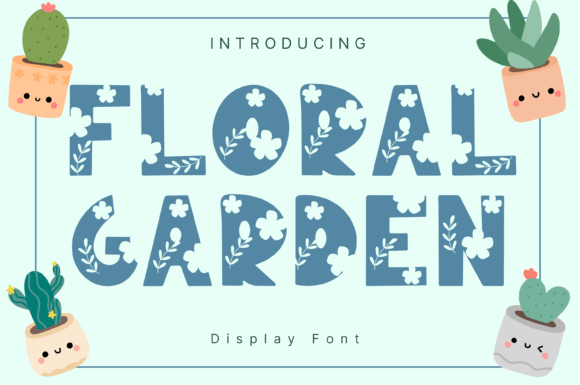
**Step into the Enchanted Realm of Floral Garden Font**
Unveiling an ethereal font that blossoms with elegance and enchantment, Floral Garden beckons you to embark on a creative adventure where your designs bloom with captivating beauty.
This whimsical, decorative masterpiece is not merely a collection of letters; it is a gateway to a realm where imagination reigns supreme. Crafted with the utmost precision and adorned with intricate details, Floral Garden carries the essence of nature's finest creations.
Every curve, every stroke, and every swirl of this font exudes a sense of delicate charm, inviting you to infuse your projects with an air of timeless sophistication. Prepare to be mesmerized as your words bloom into captivating works of art, effortlessly attracting attention and leaving a lasting impression.
**Beyond the Ordinary: Unleashing the Power of Floral Garden**
Floral Garden is more than just a font; it is a catalyst for creative brilliance. Its versatility knows no bounds, lending itself effortlessly to an endless array of projects. From the delicate intricacies of wedding invitations to the bold statements of marketing campaigns, Floral Garden transforms your ideas into captivating expressions of your unique vision.
Picture the allure of a meticulously crafted resume, where the words dance gracefully across the page, exuding professionalism and refinement. Witness the enchantment of a captivating social media post, where your message captivates followers with its charming elegance. Let your imagination soar as you create stunning logos, brochures, and website designs that bloom with captivating beauty.
**Immerse Yourself in the Elegance of Nature's Finest**
Floral Garden embodies the exquisite beauty of nature's artistry. Its intricate details are inspired by the delicate petals of blooming flowers, the graceful curves of twining vines, and the ethereal essence of a sun-drenched garden. With each stroke of this enchanting font, you bring a touch of the natural world into your creative endeavors.
Unlike ordinary fonts that fade into the background, Floral Garden commands attention with its captivating presence. Its intricate flourishes and delicate embellishments will elevate your designs to new heights, ensuring that they leave an unforgettable mark on all who behold them.
**Embark on a Journey of Creative Abundance**
Floral Garden is your invitation to embrace the fullness of your creative potential. With this extraordinary font, you can:
* Compose heartfelt letters that express your emotions with unmatched elegance.
* Create social media posts that captivate your audience with their charming appeal.
* Design eye-catching brochures and flyers that entice customers with their allure.
* Craft stunning website designs that leave a lasting impression.
* Transform ordinary presentations into captivating visual masterpieces.
**Unleash the Beauty Within: Embrace Floral Garden Today**
Floral Garden is more than just a font; it is an investment in the limitless possibilities of your creativity. With its enchanting beauty and unparalleled versatility, it empowers you to bring your vision to life in ways you never thought possible.